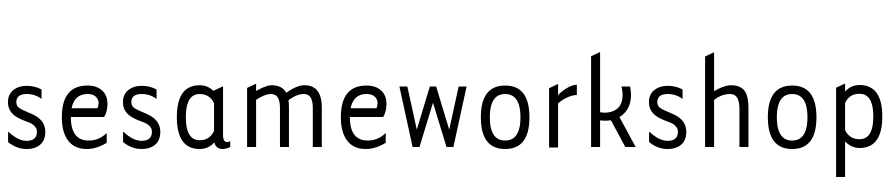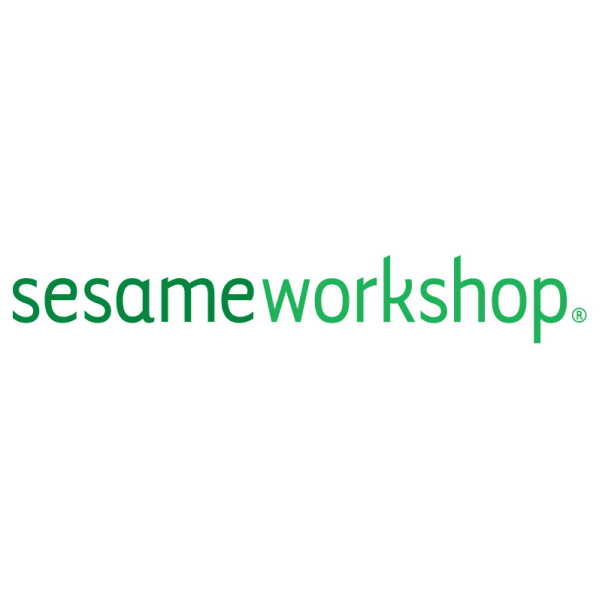
Sesame Workshop Font
EntertainmentSesame Workshop is a nonprofit organization that produces educational children's programming, including the iconic TV show Sesame Street. Their mission is to help kids grow smarter, stronger, and kinder.
The SW logo's font Tarzana Narrow, was created by Zuzana Licko in 1998. It is a sans-serif text typeface with two font families, Tarzana Narrow and Tarzana Wide.